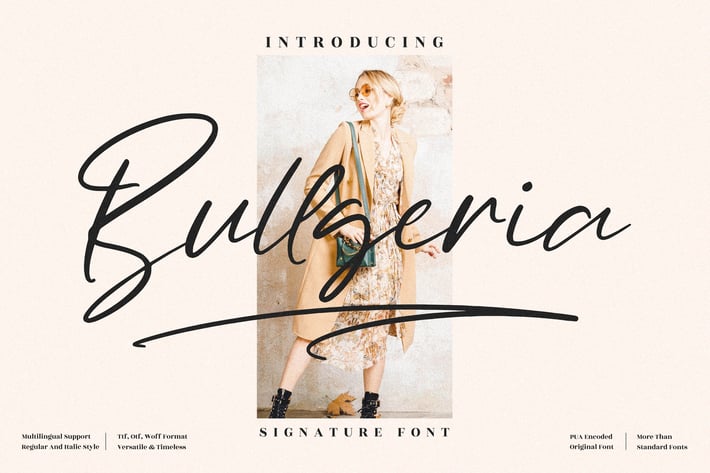
Bullgeria Signature Font
Bullgeria Signature is an elegant and modern signature font, designed to add a personal and professional touch to both digital and print designs. With its refined letterforms and natural flow, this font is suitable for branding, logos, invitation designs, and promotional materials that require a luxurious and feminine character.
Fashion & cosmetic brand logos
Personal branding & signature logos
Invitation card & wedding stationery designs
Elegant social media quotes & posts
Product packaging and labels
Regular & Italic Style
Versatile & Timeless
Calligraphic
Smooth handwritten flow
Modern feminine aesthetic
Natural signature vibe